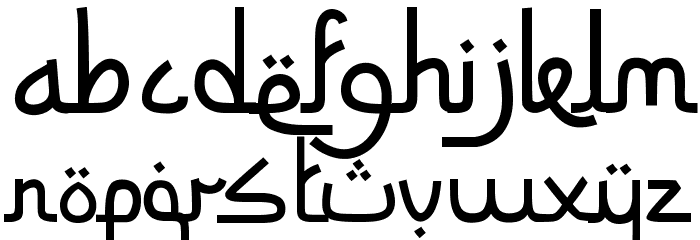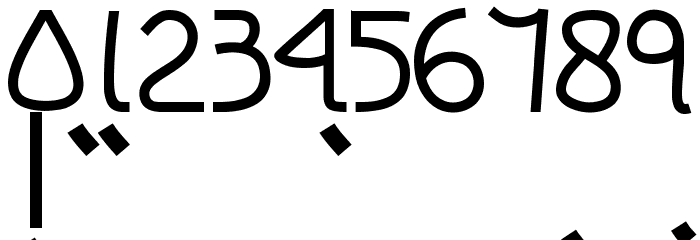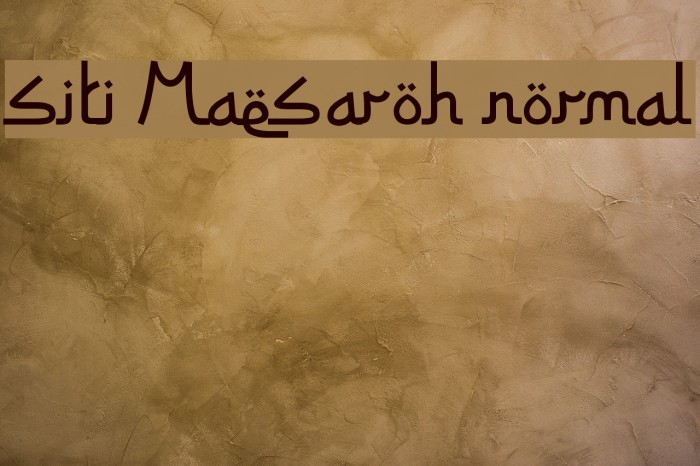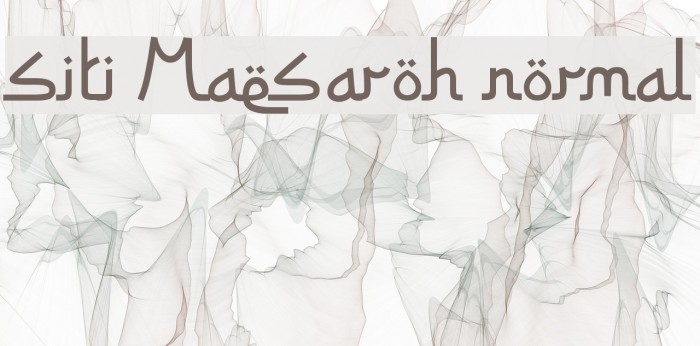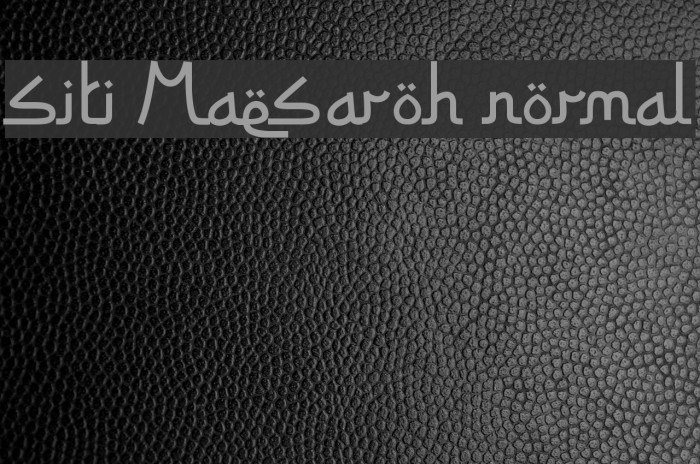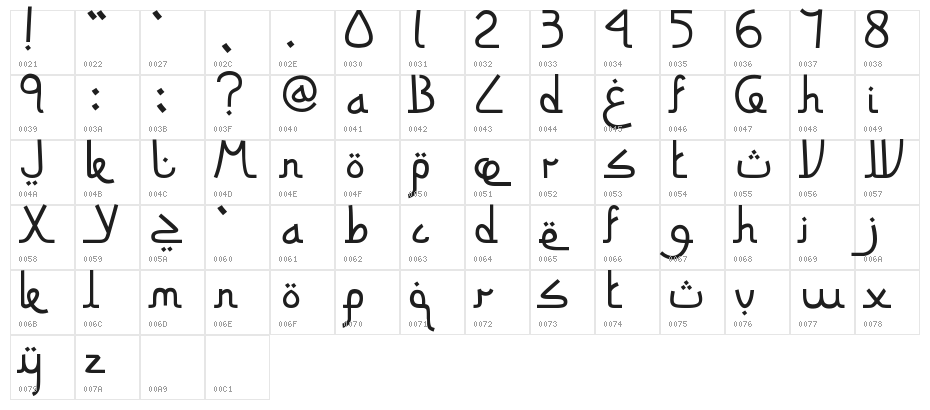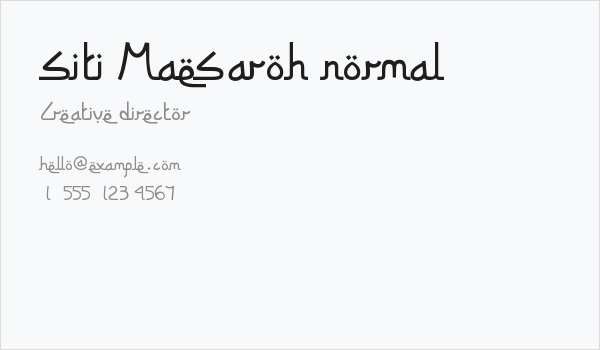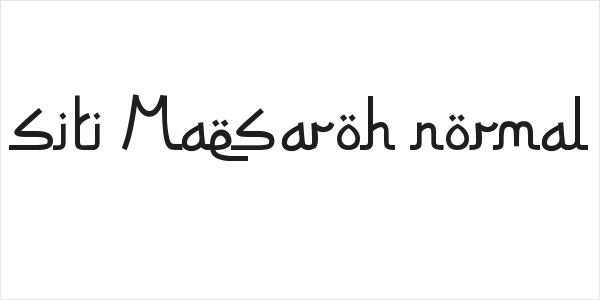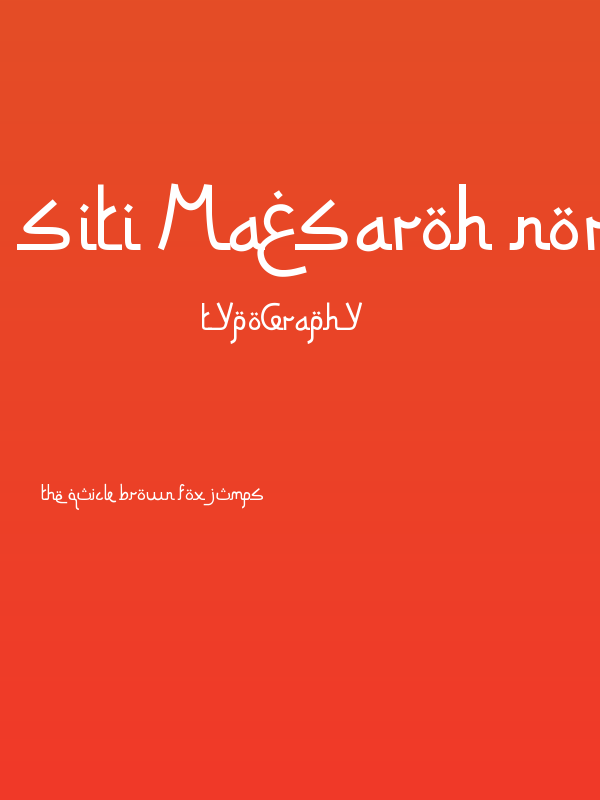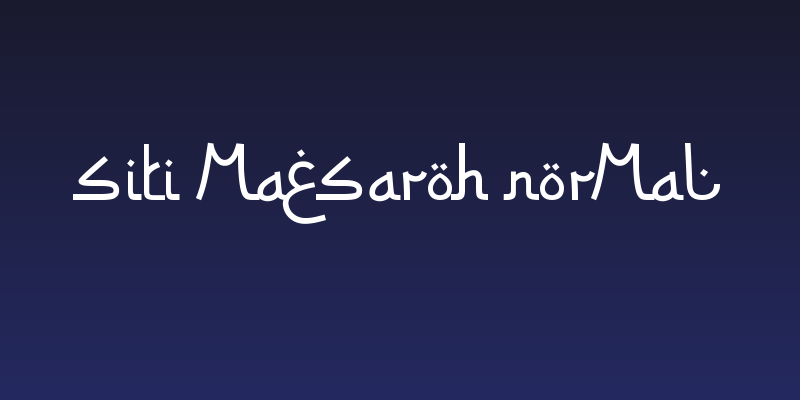
Siti Maesaroh Normal Font
This font features a unique blend of geometric and organic forms, creating a visually striking appearance. The characters are bold and rounded, with a playful yet structured design. The uppercase letters exhibit a consistent height, while the lowercase letters maintain a harmonious flow. The numerals and special characters are designed to complement the overall style, ensuring readability and aesthetic appeal. The font's distinctiveness lies in its ability to convey both modernity and a touch of whimsy, making it suitable for a variety of creative applications.
A bold, rounded font with geometric and organic elements, offering a modern and playful style.